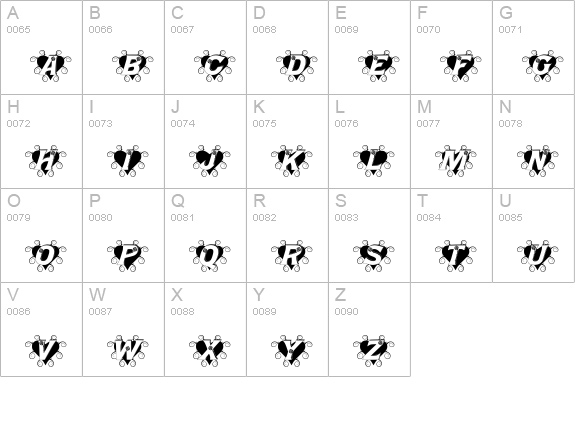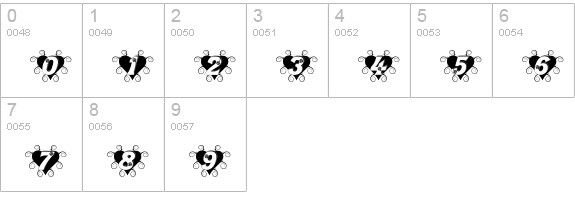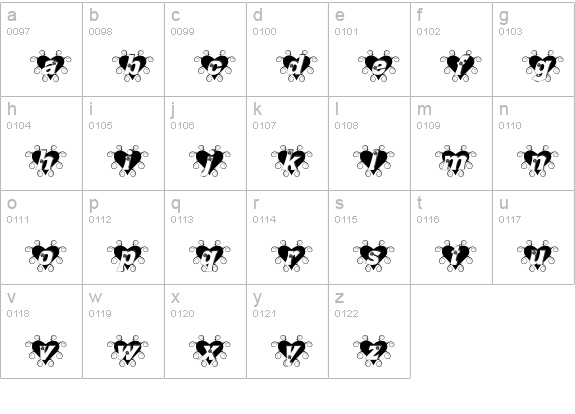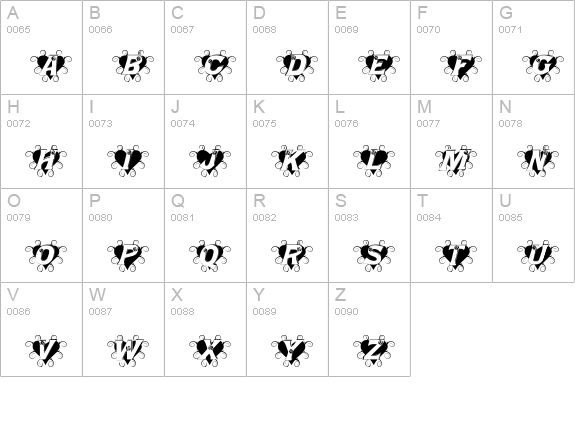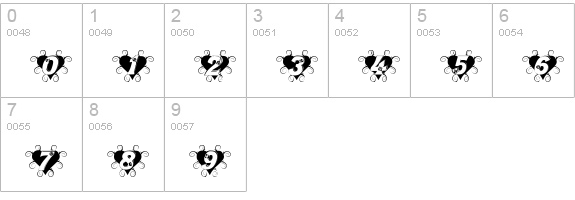
Thorn_Heart Font Details
Thorn_Heart is a captivating and enchanting font that will add a touch of mystique to any design project. Its intricate and delicate letterforms are reminiscent of thorny vines intertwining to form a heart shape, giving it a unique and romantic feel. This free font is perfect for adding a touch of elegance and sophistication to wedding invitations, love letters, or any other heartfelt message you want to convey. Its stylish and modern design will make your text stand out and leave a lasting impression on your audience. Thorn_Heart is freely available to download at FontsMarket.com, a trusted source for high-quality and diverse font selections. With just a few clicks, you can have this stunning font in your collection and start using it in various creative projects. Whether you're a professional designer or someone who enjoys experimenting with different fonts, Thorn_Heart will surely become one of your favorites. Its versatility allows it to be used in a wide range of projects, from branding and advertising to social media graphics and website designs. Don't miss out on the opportunity to elevate your designs with this beautiful and free font. Download Thorn_Heart today from FontsMarket.com and let its intricate details and romantic charm captivate your audience.